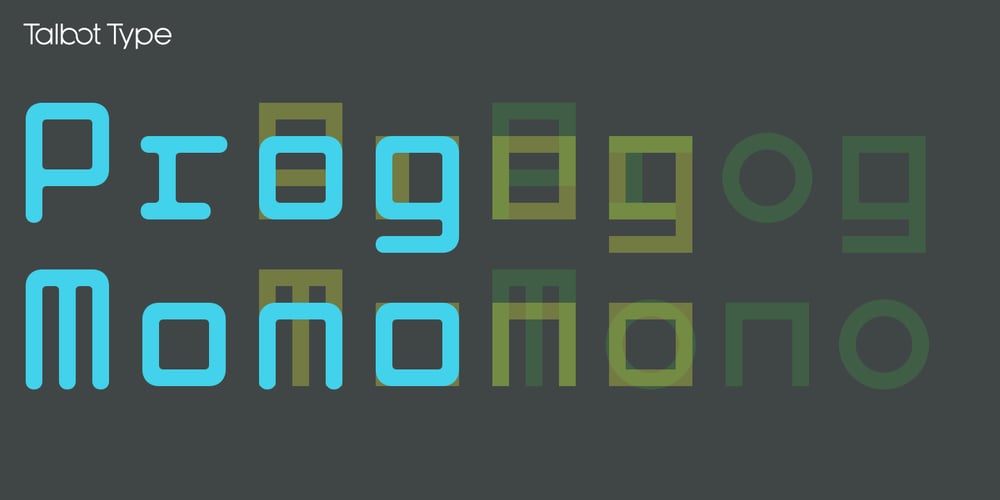
Prog Mono
Prog Mono font
Prog Mono Font Family was designed by Adrian Talbot and published by Talbot Type. Prog Mono contains 3 styles and family package options. Prog Mono is a modular font created on a five by nine square grid. The x-height, and consequently most of the lower case adheres to a five by five grid, with an additional two units above and two units below for capitals, ascenders and descenders. There are three versions of Prog available: Square (square-edged), Radius (round-edged) and Fusion which is essentially square but with round O’s, round punctuation and diagonal 45° X’s. The addition of a few disruptive characters makes quite a difference to the look of the font, it has a bit of a dangerous quality.A regular width version of all three styles is also available where a few characters, most notably the M and W in both upper and lower case are granted a width of seven units giving them a more conventional look.All versions have full upper and lower case character sets and includes all accented characters for Western and Central European languages.